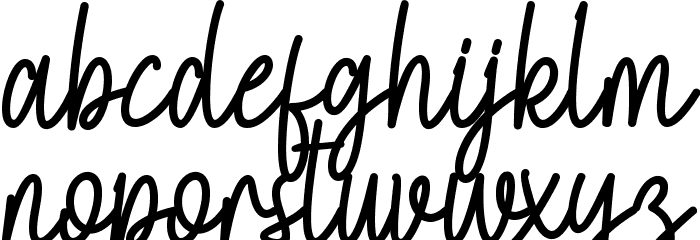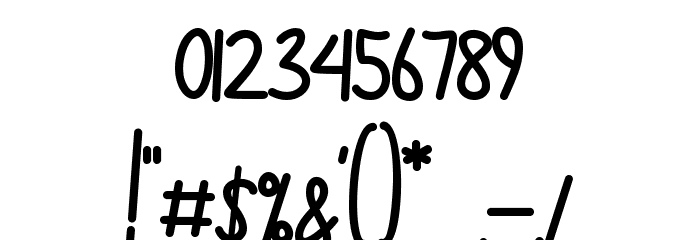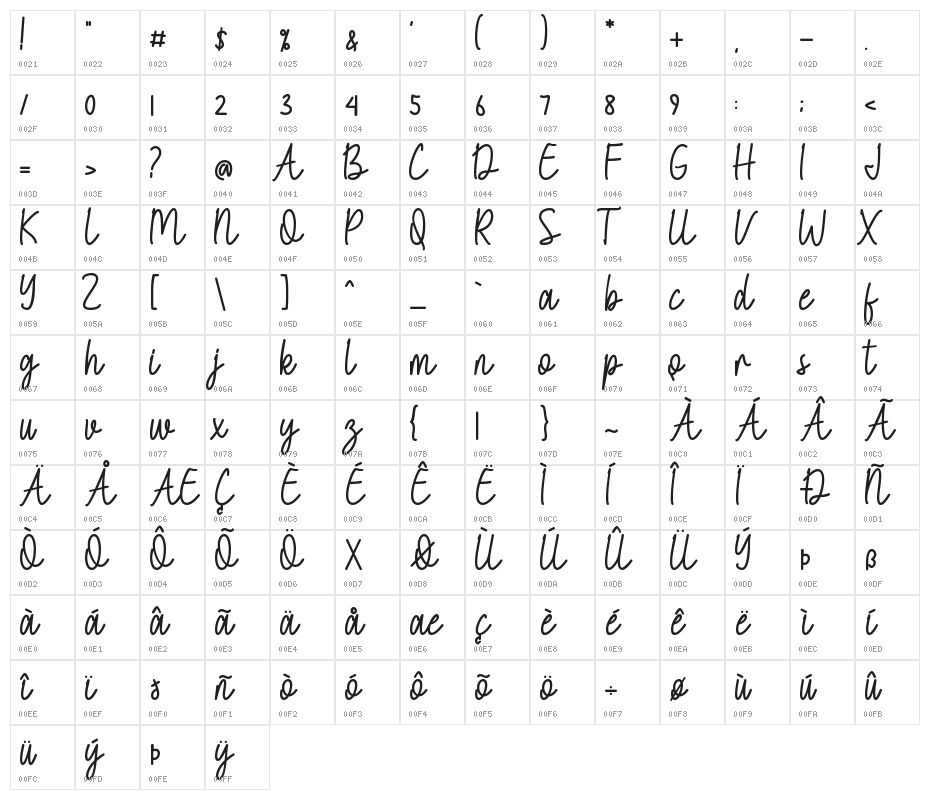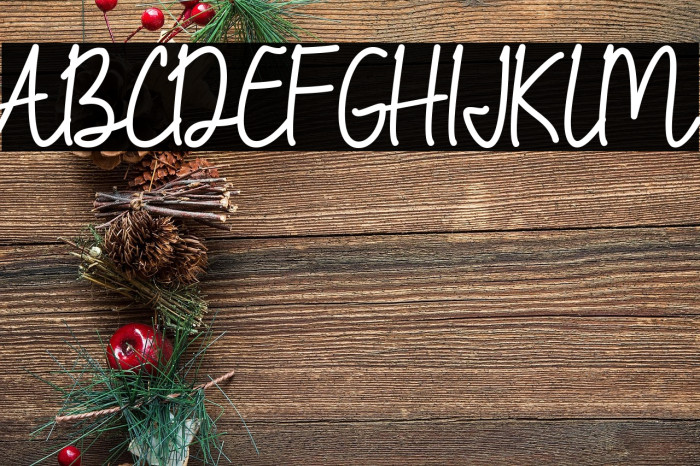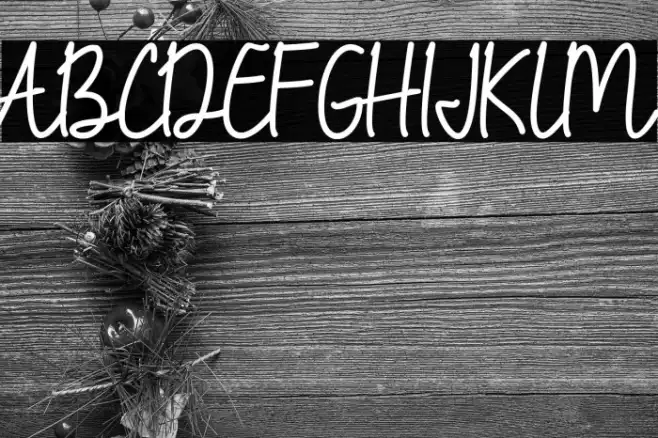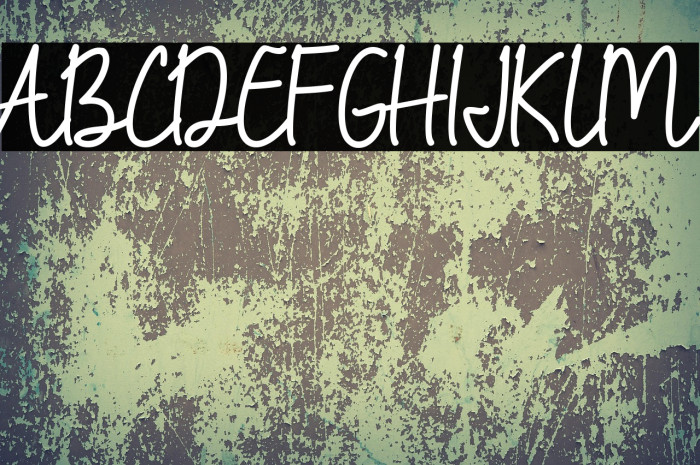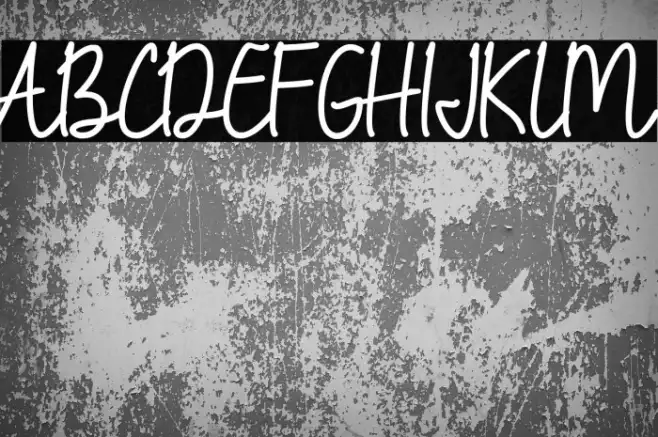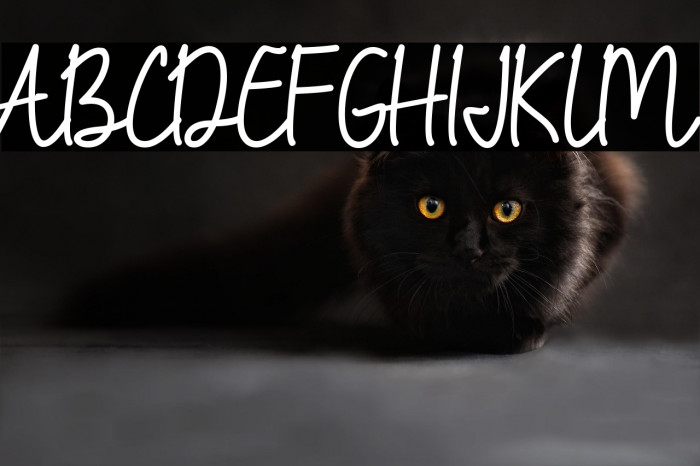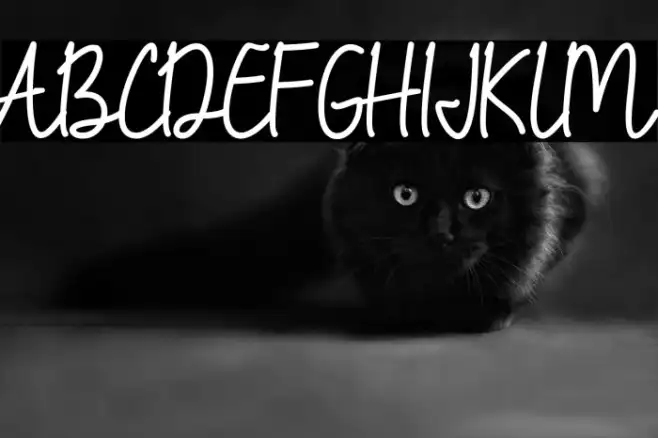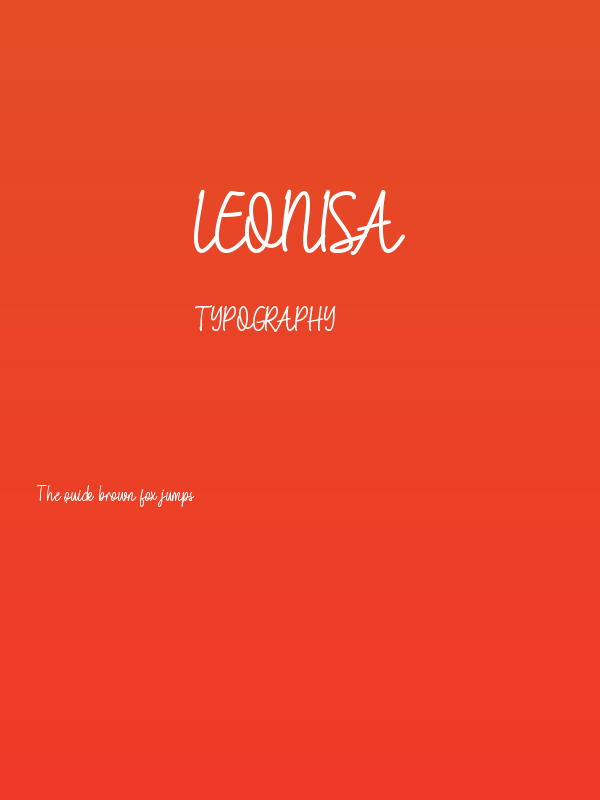
Leonisa Font
This font features a lively and flowing script style, characterized by its smooth, connected letters that mimic natural handwriting. The uppercase letters are tall and slightly slanted, while the lowercase letters maintain a consistent flow with rounded edges and a casual elegance. The numerals are clear and maintain the same fluidity, ensuring readability. Special characters are seamlessly integrated, maintaining the overall aesthetic. This font exudes a sense of personal touch and creativity, making it ideal for projects that require a humanistic and approachable feel.
A lively, flowing script font with a natural handwriting style.
- Font: Leonisa
- Proposed Projects: Ideal for personal branding, invitations, greeting cards, and creative projects that require a personal touch.
- Category: Script
- Overall Style: Casual, Handwritten
- Use Case: Logos, Invitations, Personal Branding